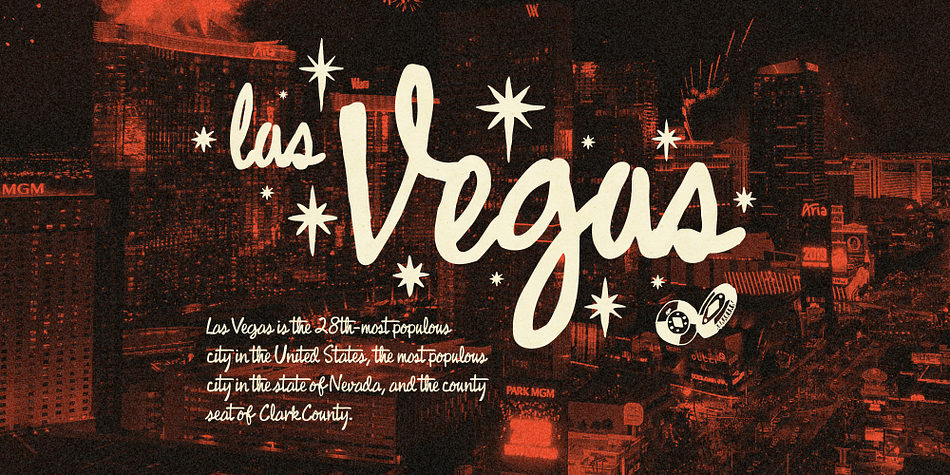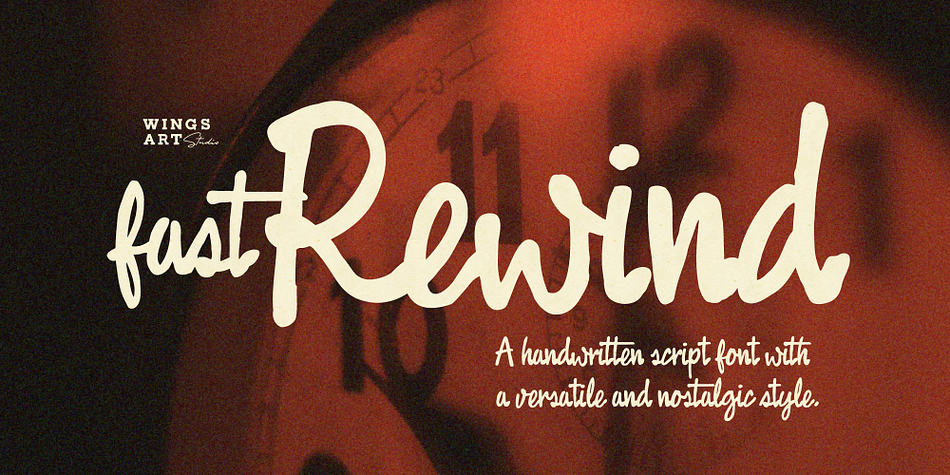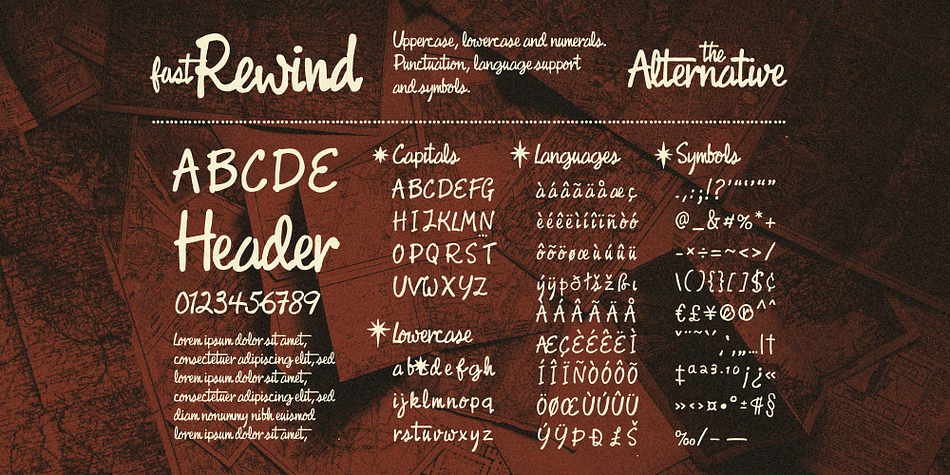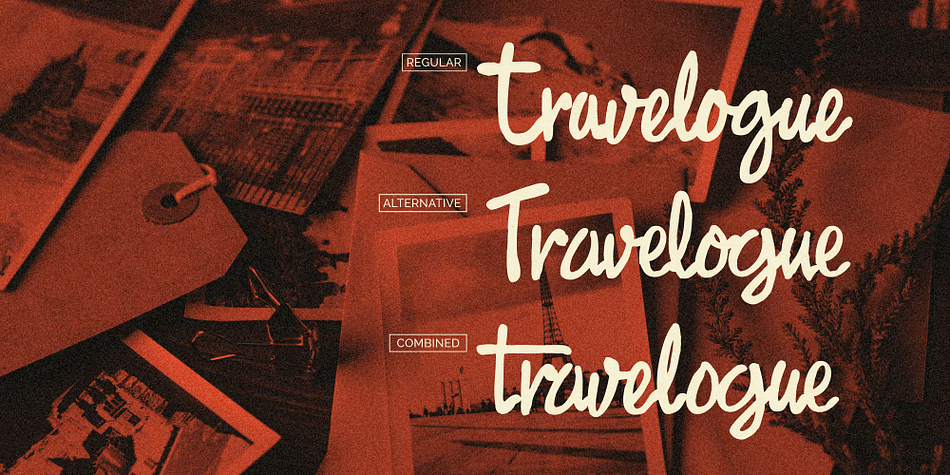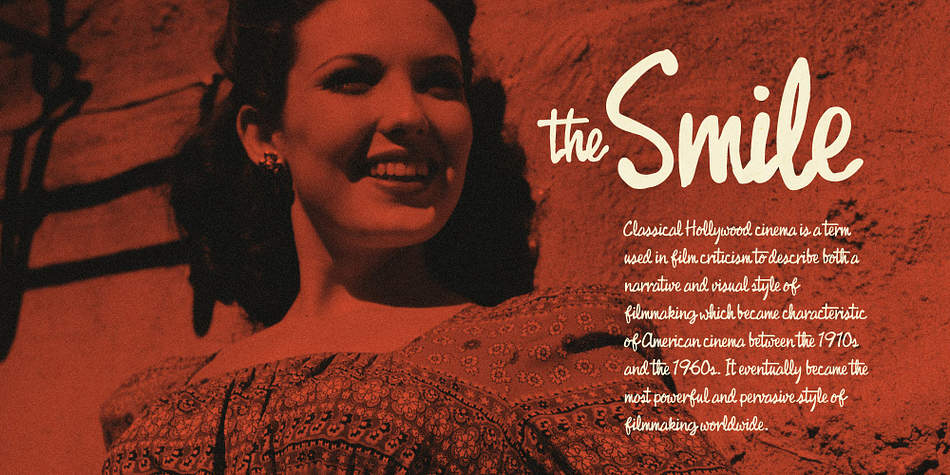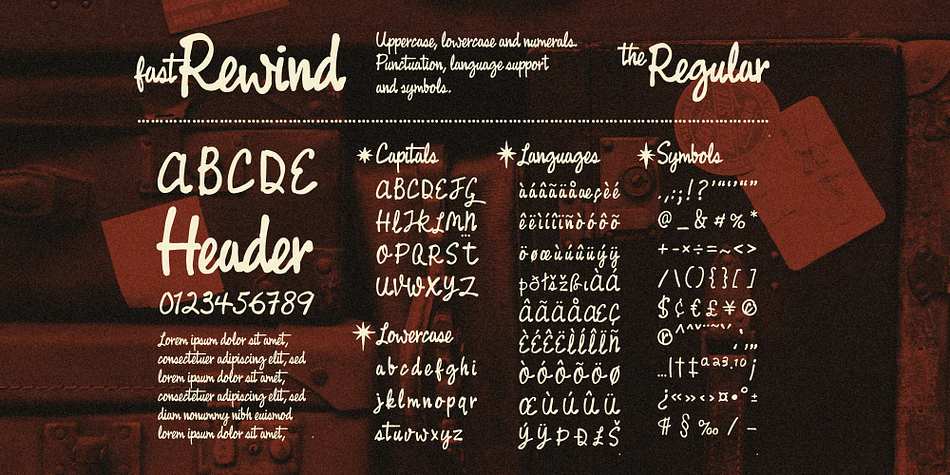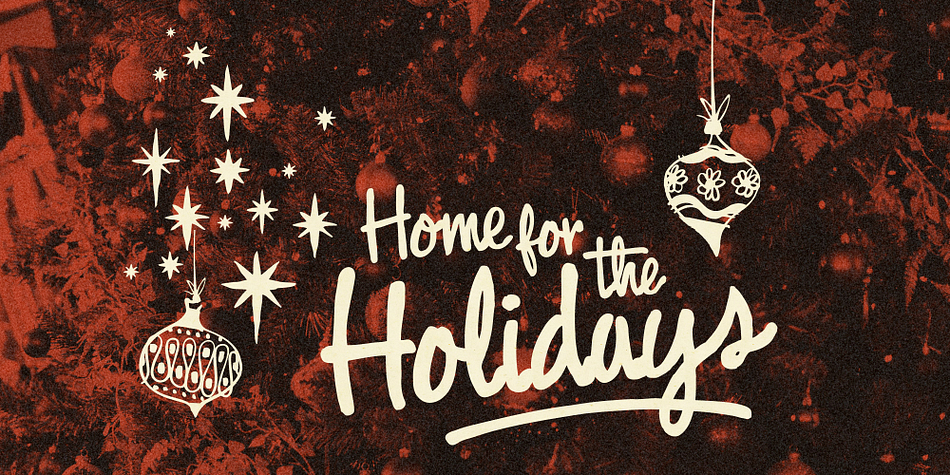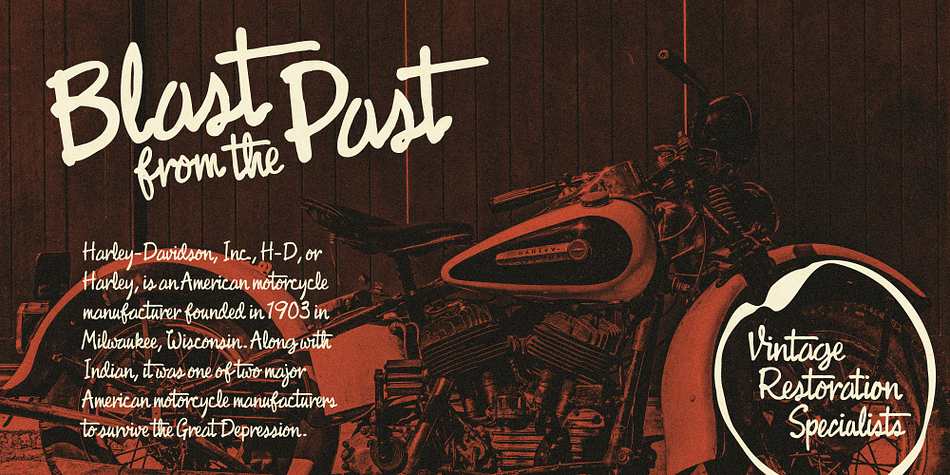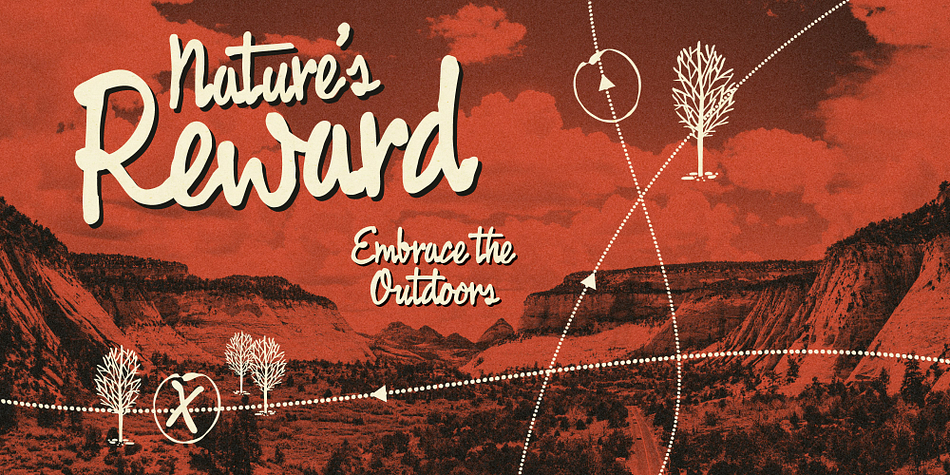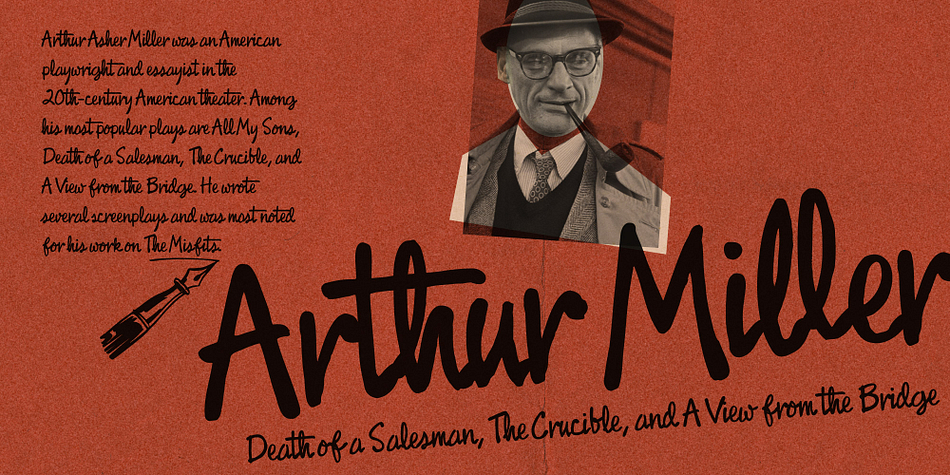
Fast Rewind
Fast Rewind is a brush script and dingbat font family. This typeface has three styles and was published by Wingsart Studio.
A handwritten brush script with a versatile, relaxed and nostalgic feel.
This illustrative brush script owes its inspiration to the 1950s art direction typical of mainstream magazines and book covers. A relaxed hand-lettered title was often paired with illustrations of handsome couples or escapist scenes, encouraging readers to settle into the latest gripping story from authors such as Ray Bradbury, Donald Westlake or Arthur Miller.
Fast Rewind aims to repurpose this vintage look for contemporary designers with two handwritten fonts, drawn in ink and brush, and then digitally mastered to maintain those all-important human imperfections.
Included are the Regular and Alternative designs, with a complete set of uppercase and lowercase characters, along with numbers, symbols and language support. Also included are a variety of underlines and illustrations as seen in these visuals. Each style also comes with its own selection of extra glyphs to help you achieve the perfect flow between characters and avoid telltale repetition.